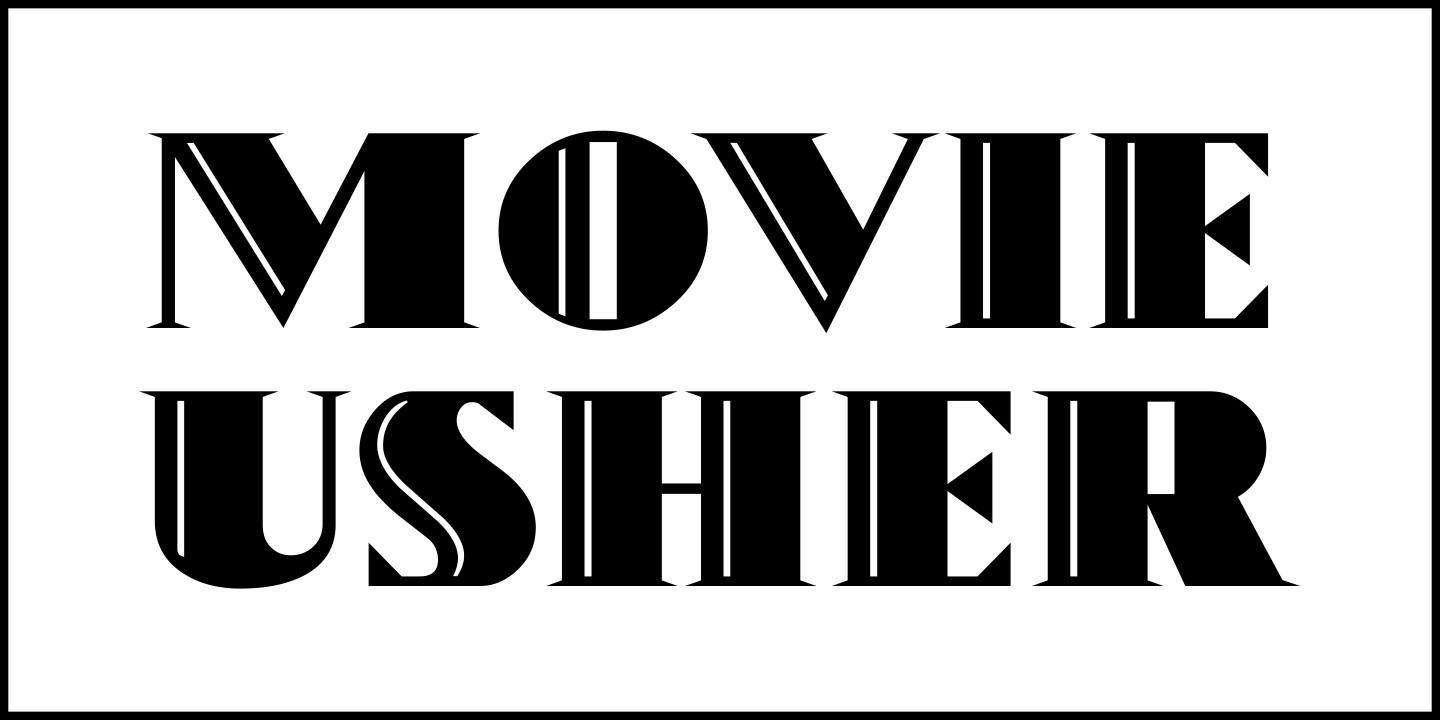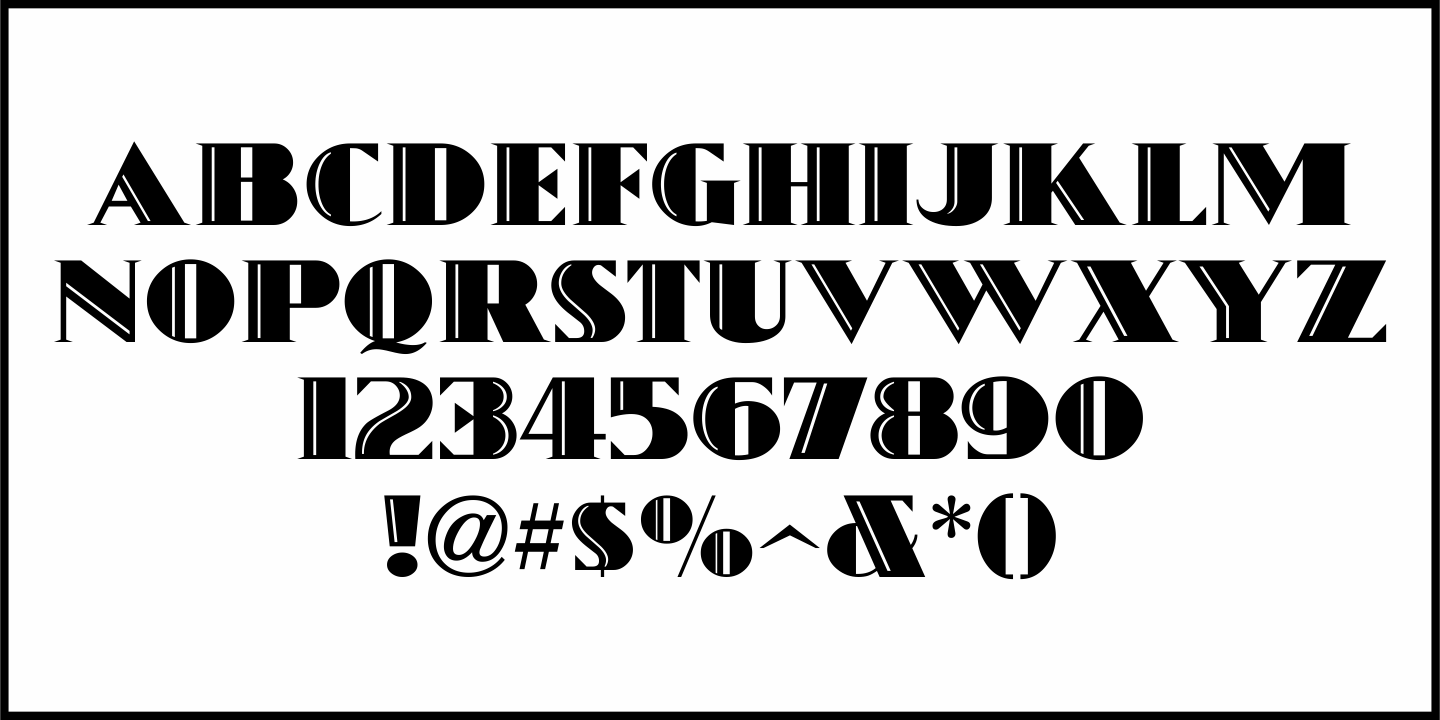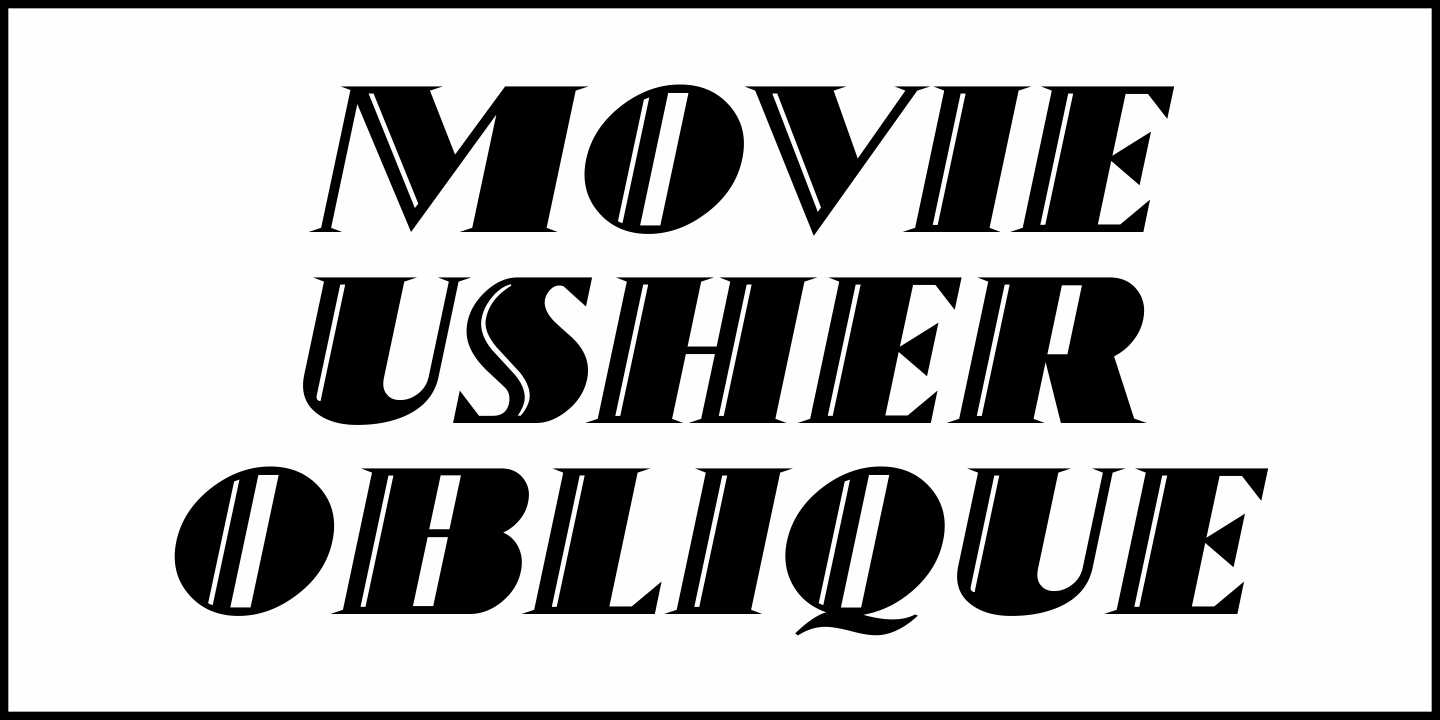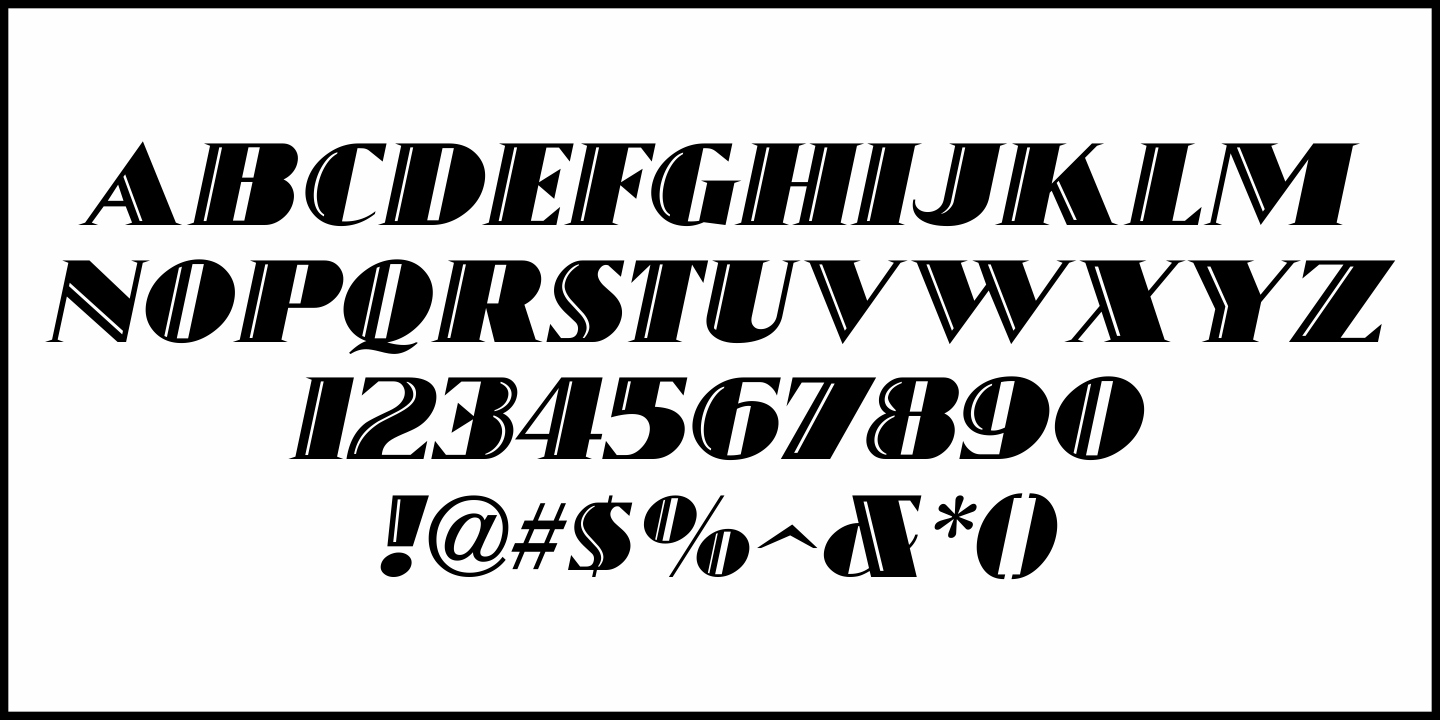
Movie Usher
An ad in the July 27, 1928 issue of The Film Daily for FBO Pictures was an encouragement to all theaters to accept the emergence of 'talking pictures' and "Don't be Panicked by Sound". The headline text was hand lettered in an extra bold serif type face with engraved [incised] lines.
The lettering has been redrawn as the digital type face Movie Usher JNL, and is available in both regular and oblique versions.
Movie Usher JNL Regular by Jeff Levine Fonts